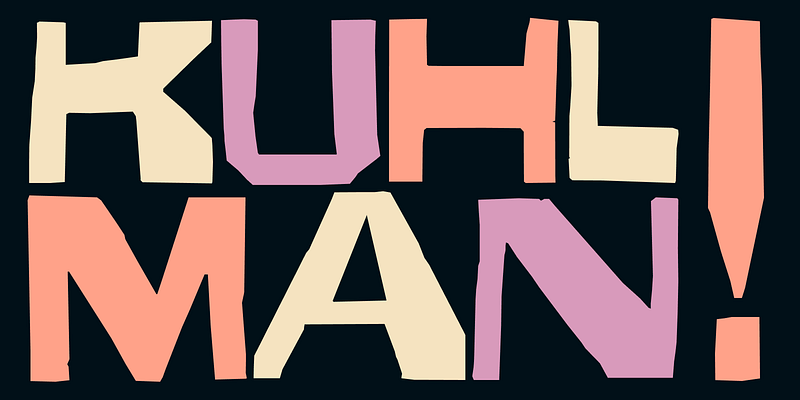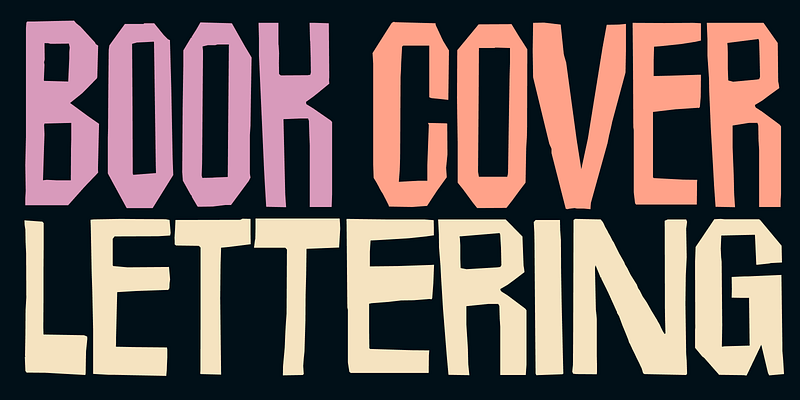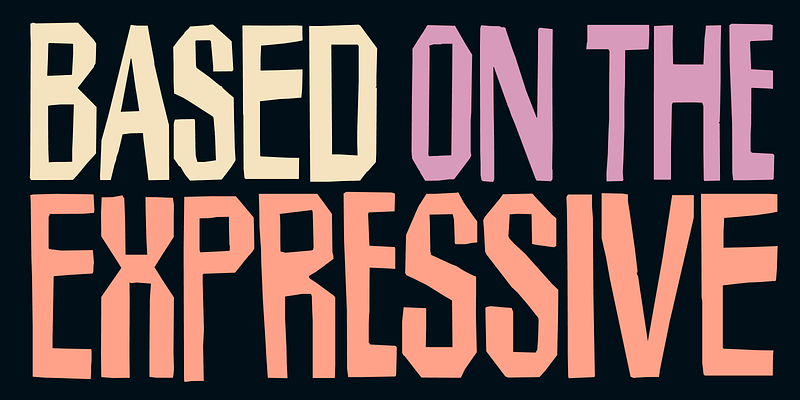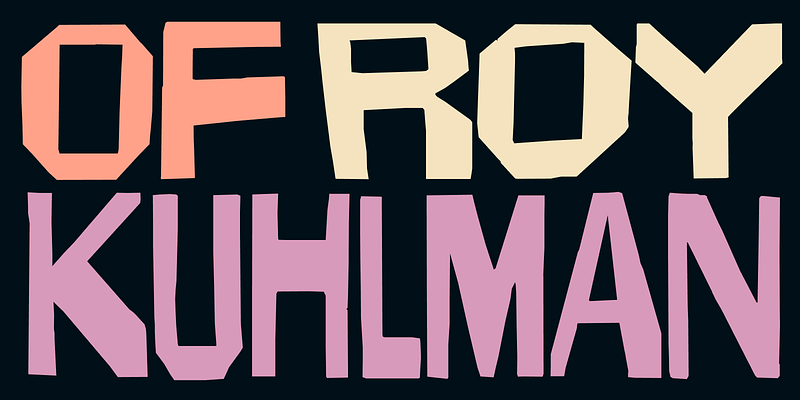
Kuhlman reinterprets the expressive lettering style deployed by graphic designer Roy Kuhlman in his book cover designs, especially those for Barney Rosset’s Grove Press in the 1950s. The font was designed in collaboration with Steven Brower and Craig Welsh to commemorate the publication of Brower’s monograph, “Roy Kuhlman: Reluctant Modernist”, and is published with the blessing of The Kuhlman Archive. Cut out of paper or masking film, Kuhlman’s starkly angular letterforms burst with spontaneity and energy.